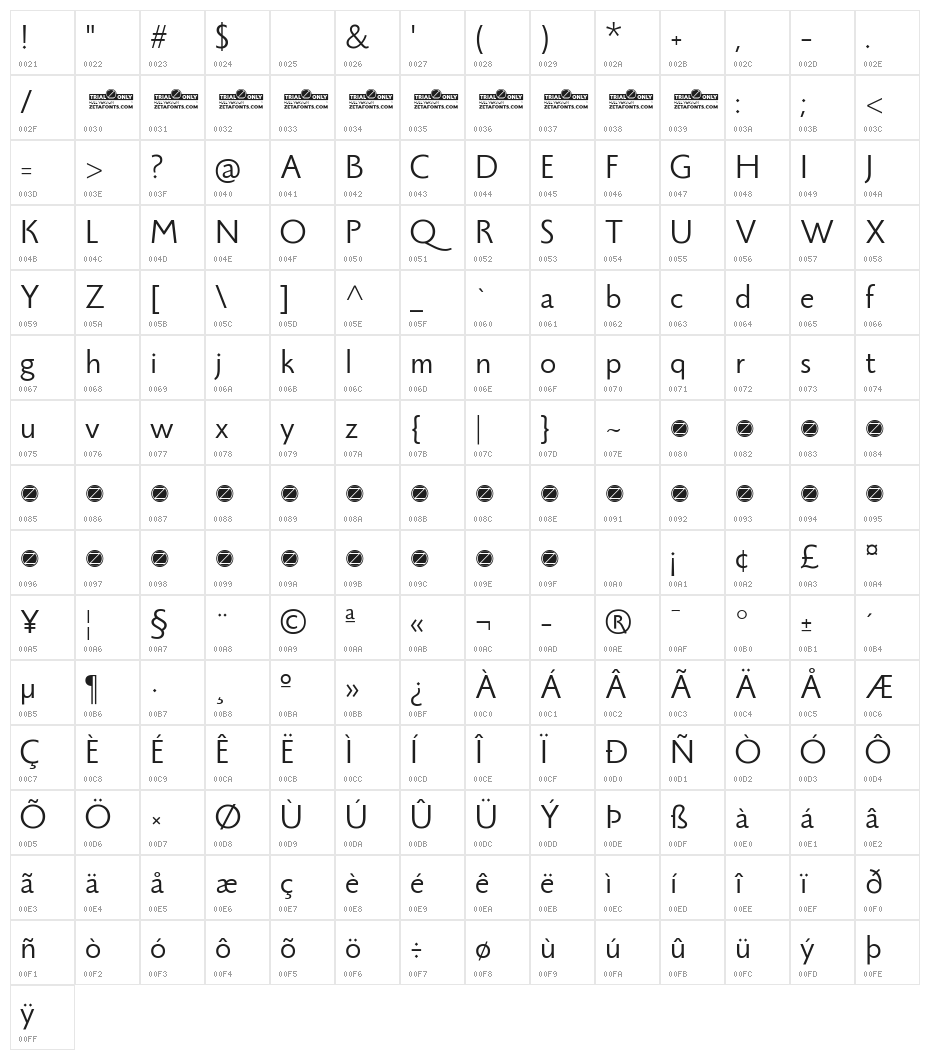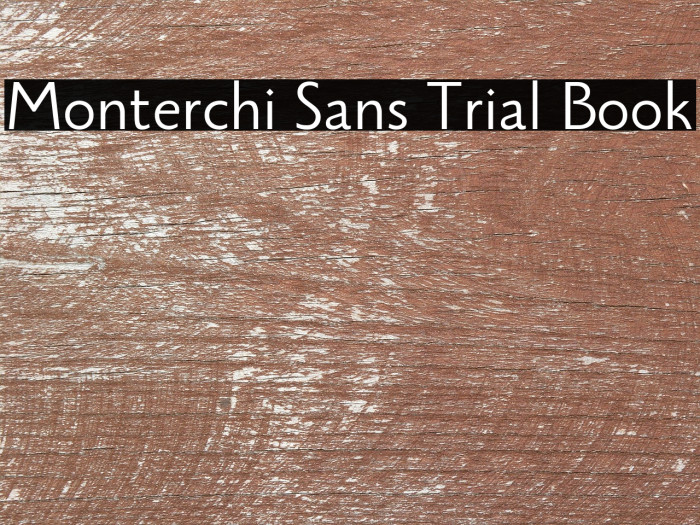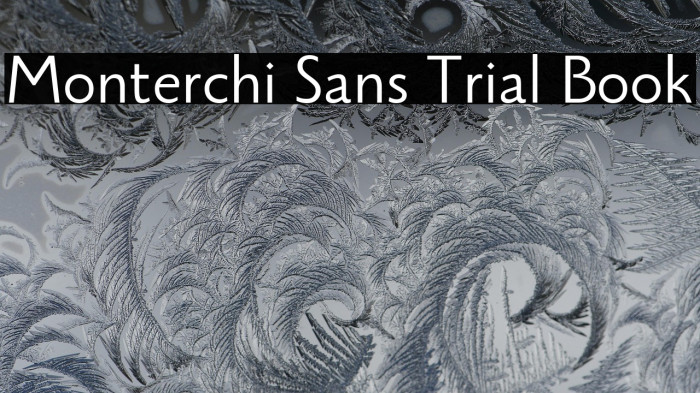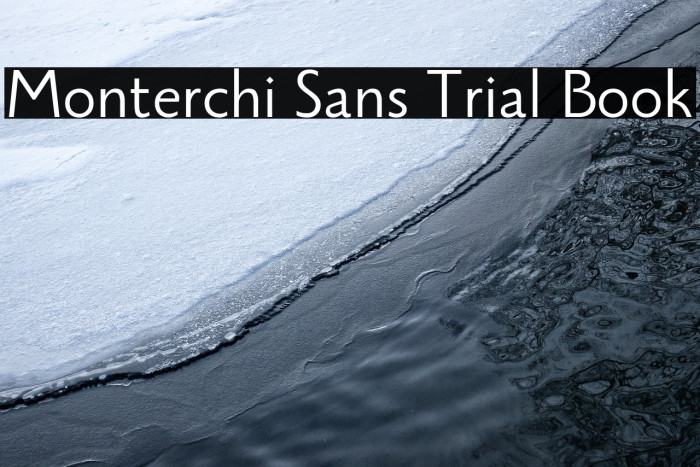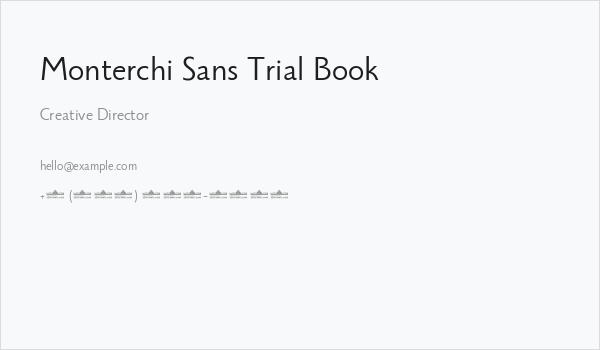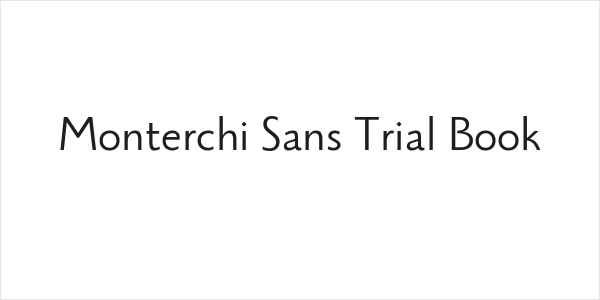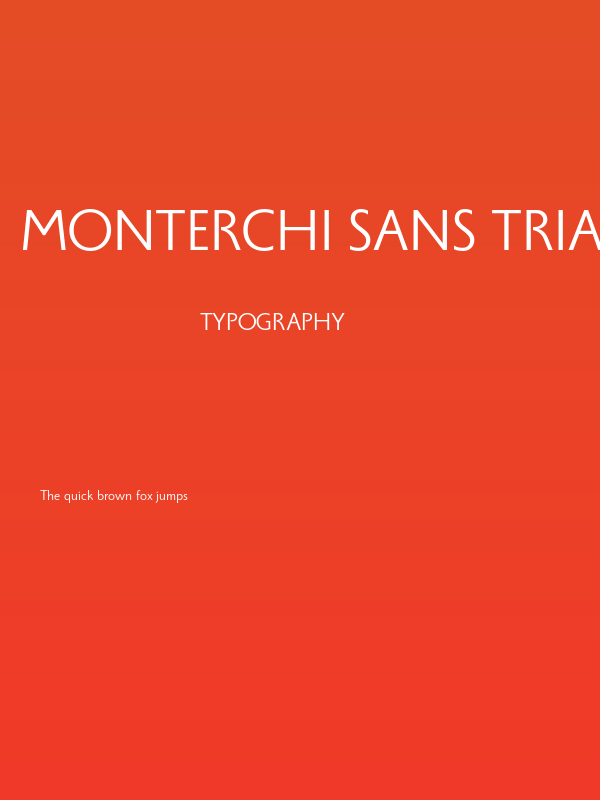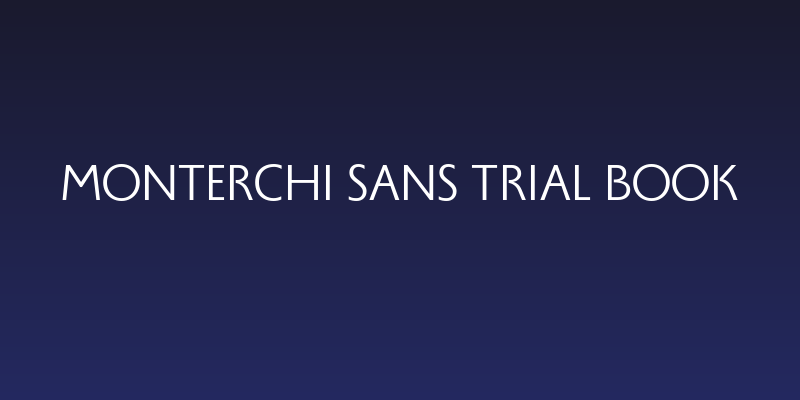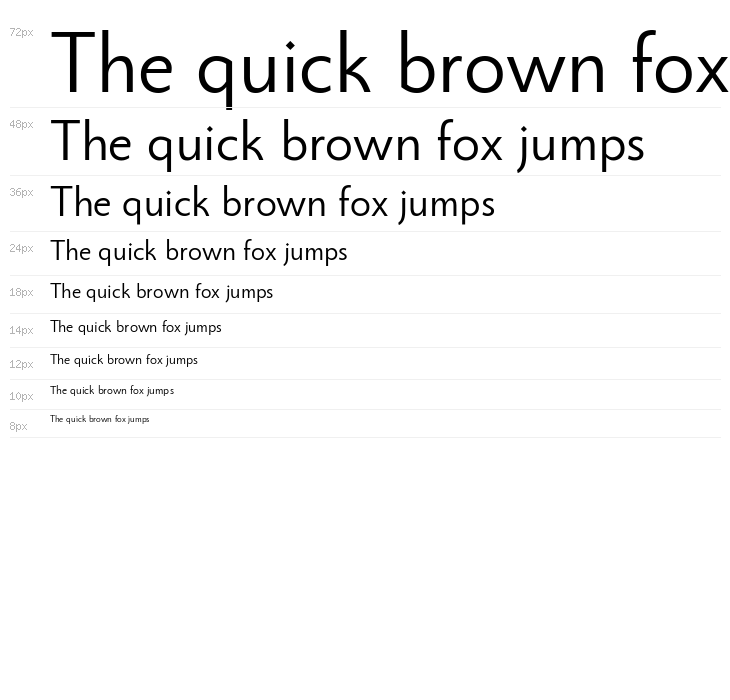
Monterchi Sans Trial Book Font
Monterchi Sans Trial Book Description
This font features a clean and modern sans-serif design, characterized by its geometric shapes and balanced proportions. The uppercase letters exhibit a uniform height with subtle variations in stroke width, giving it a sleek and contemporary appearance. The lowercase letters maintain a consistent x-height, contributing to its readability and versatility. The numerals are straightforward and align well with the overall style, while the special characters are distinct and well-integrated. This font's simplicity and clarity make it suitable for a wide range of applications.